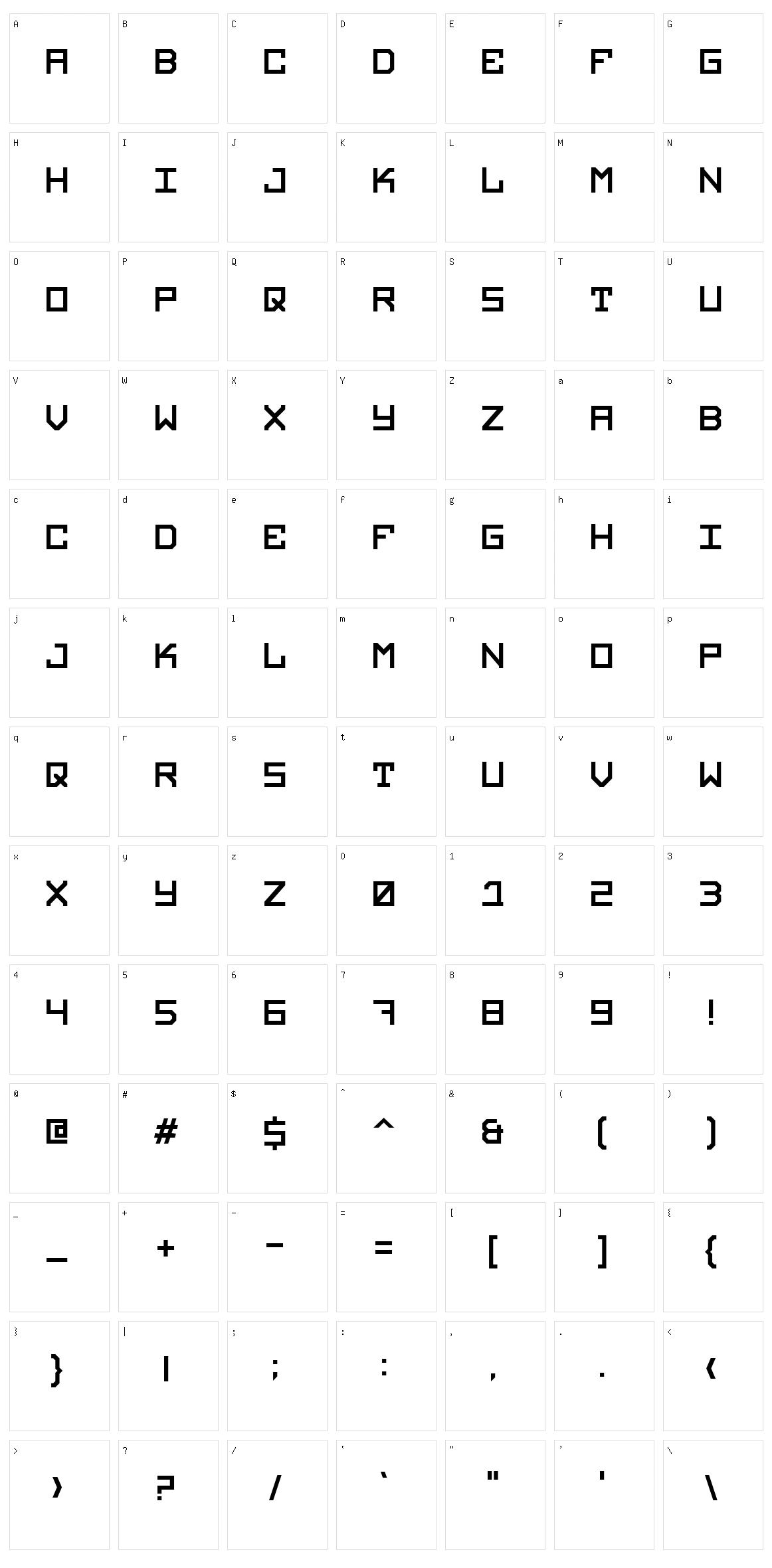
The free font Legacy is carefully designed by Aaron Fox, showcasing a thoughtful balance of creativity and usability and falls under the Square font style. When you download the ZIP file, it contains only 7.21 KB of font files, making it lightweight and quick to download. Please review the license details below to understand permitted usage and distribution rights. If license information is not available, we recommend using this font for personal projects only or contacting the author directly for commercial usage permissions.